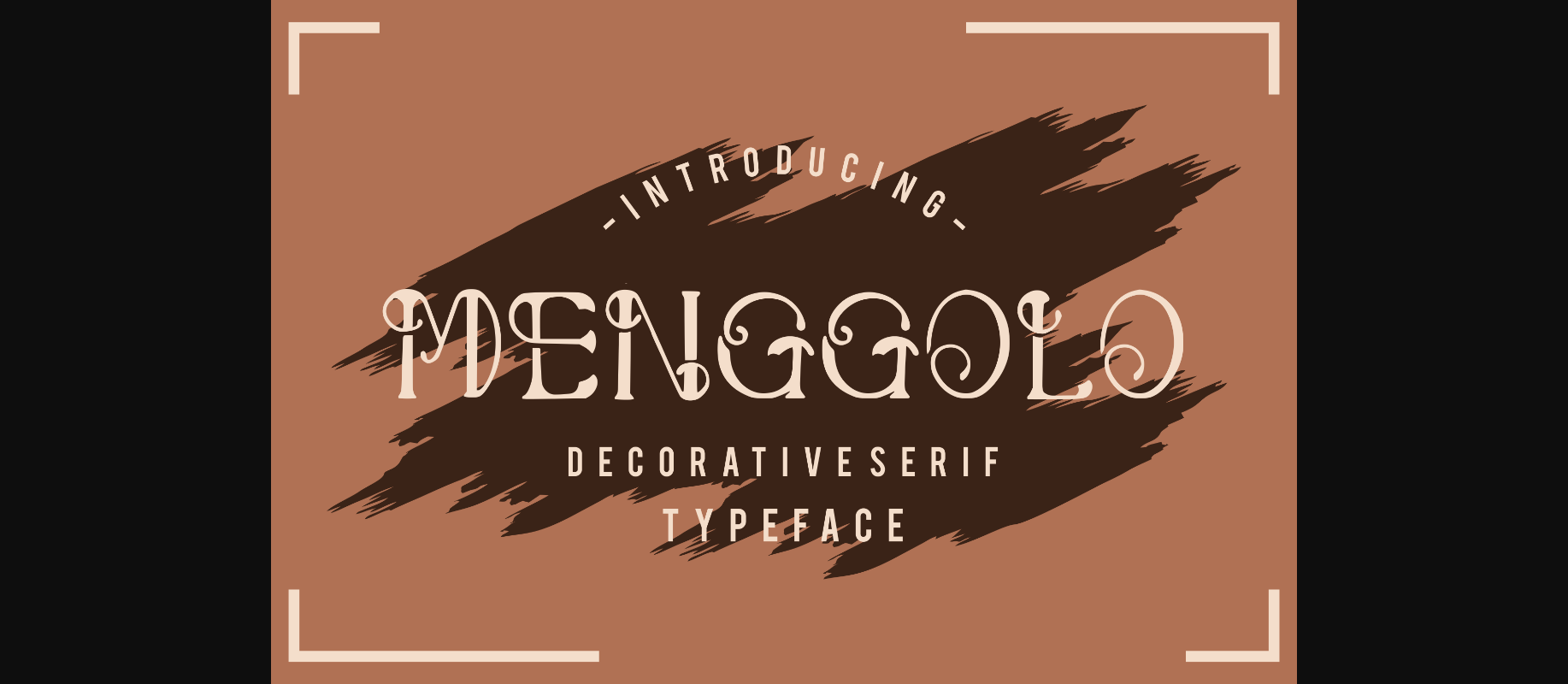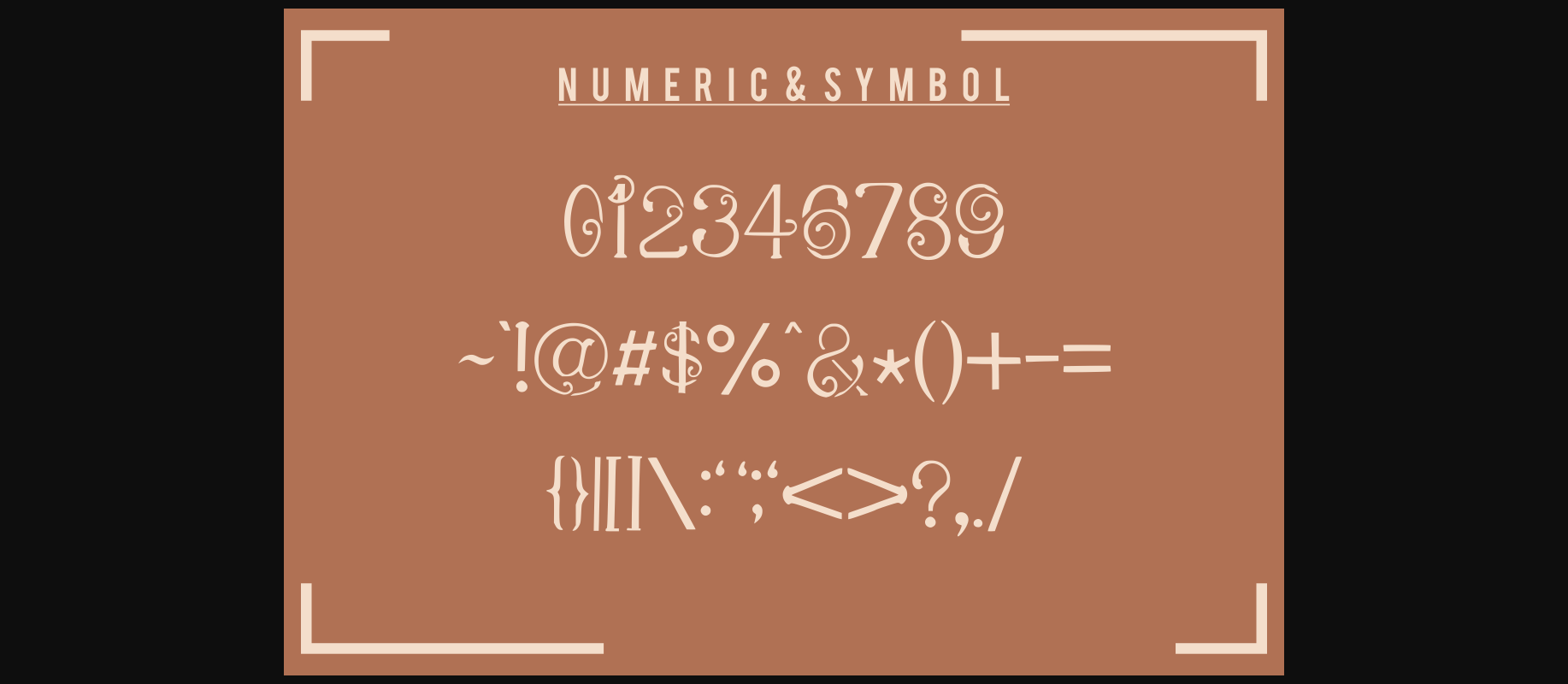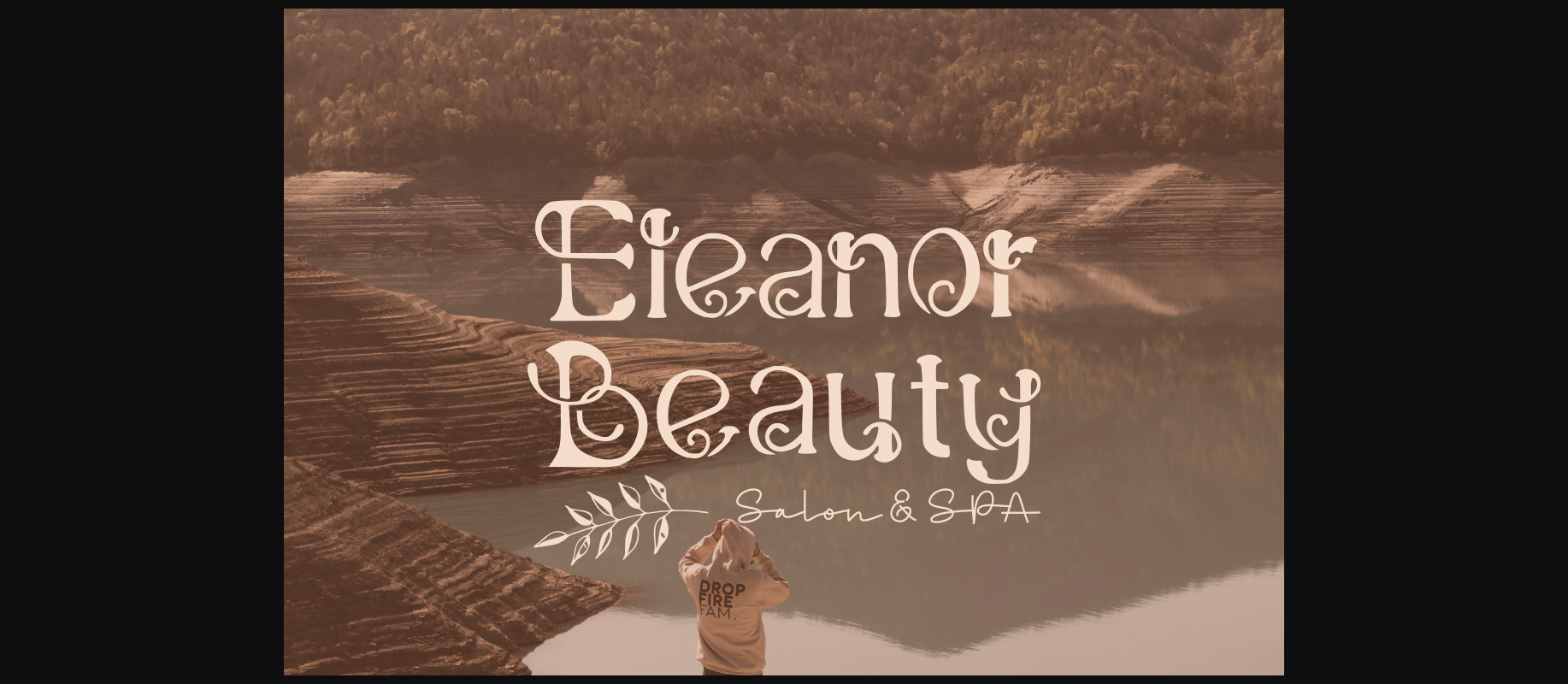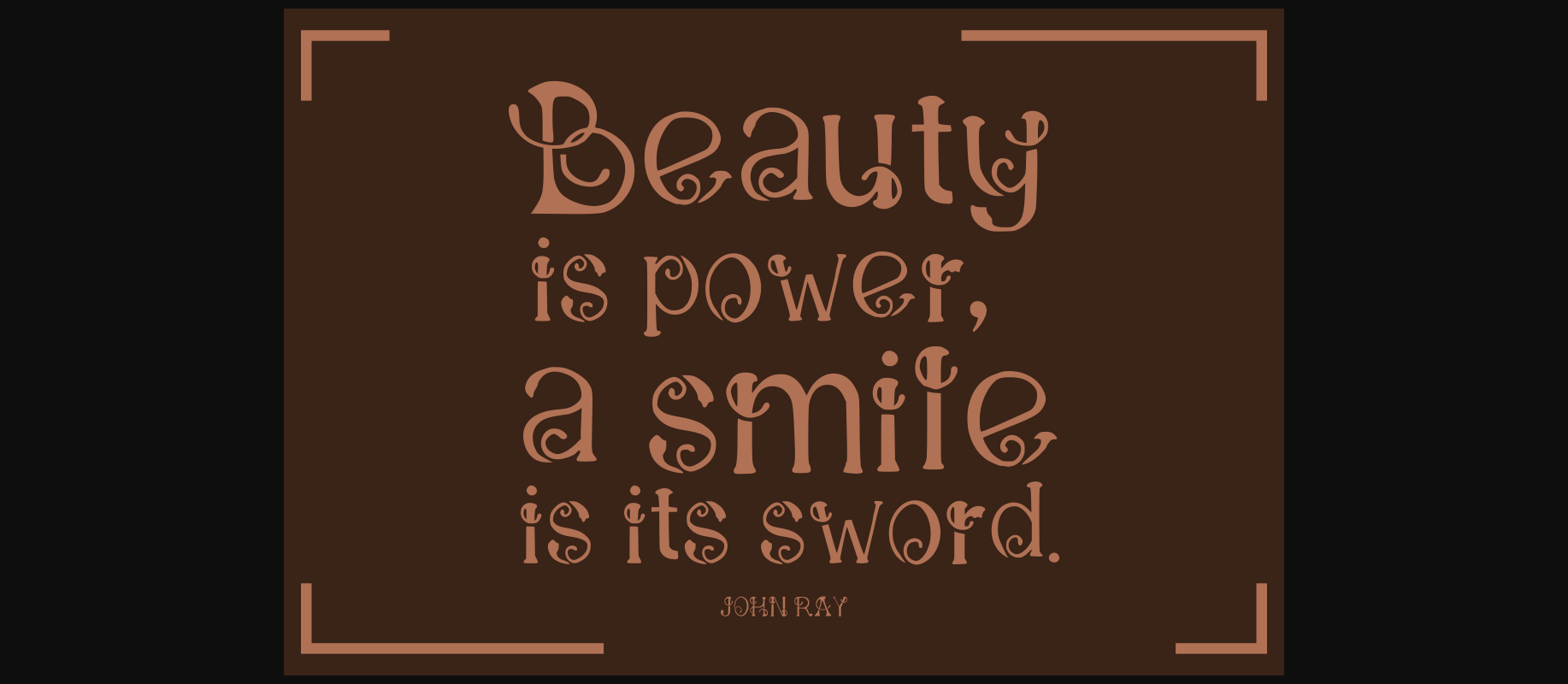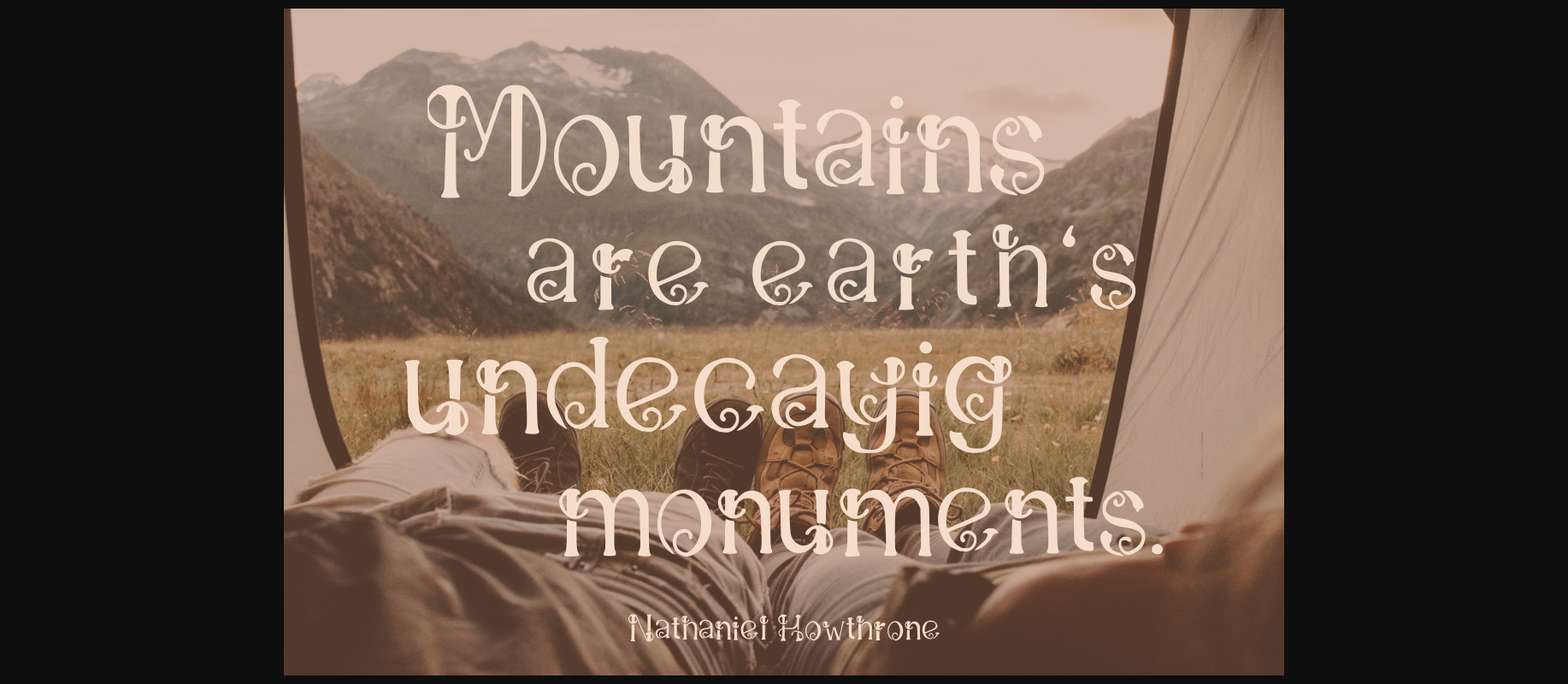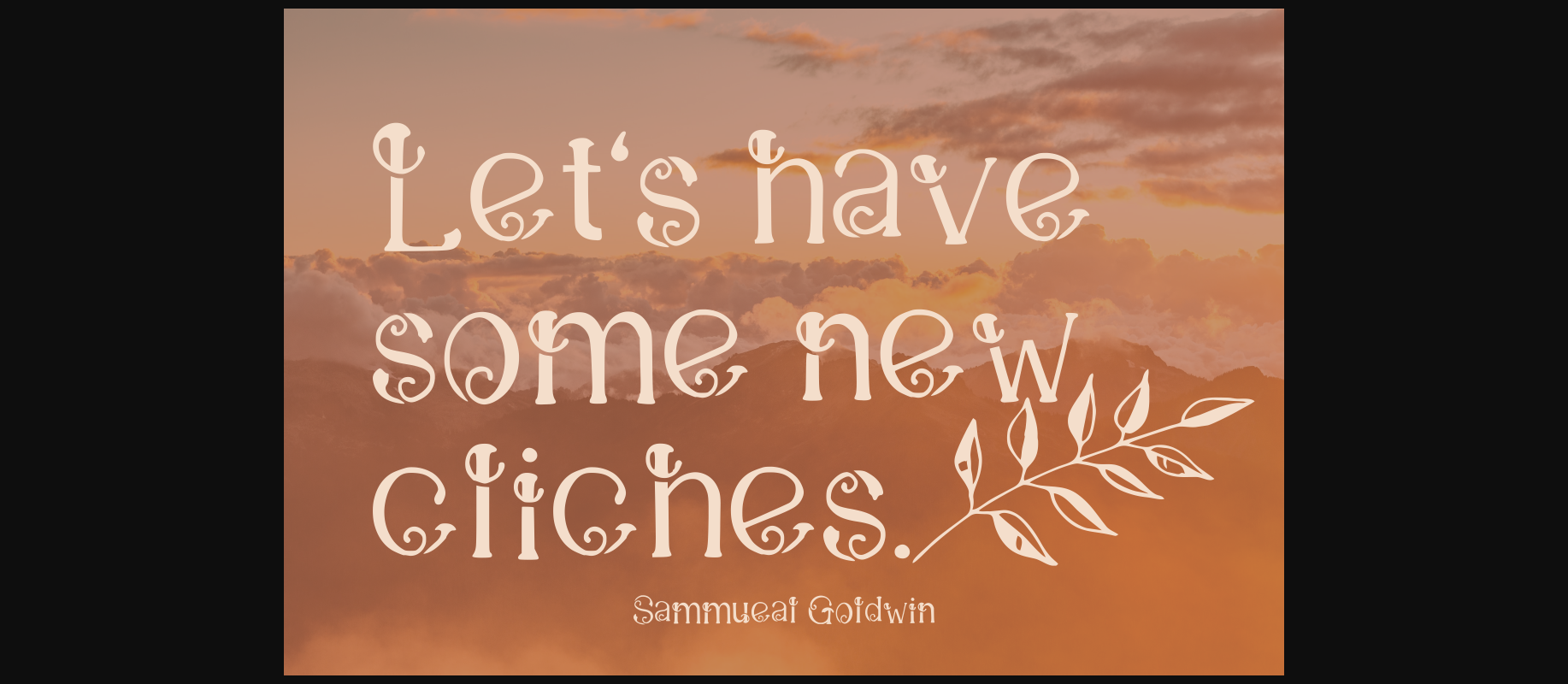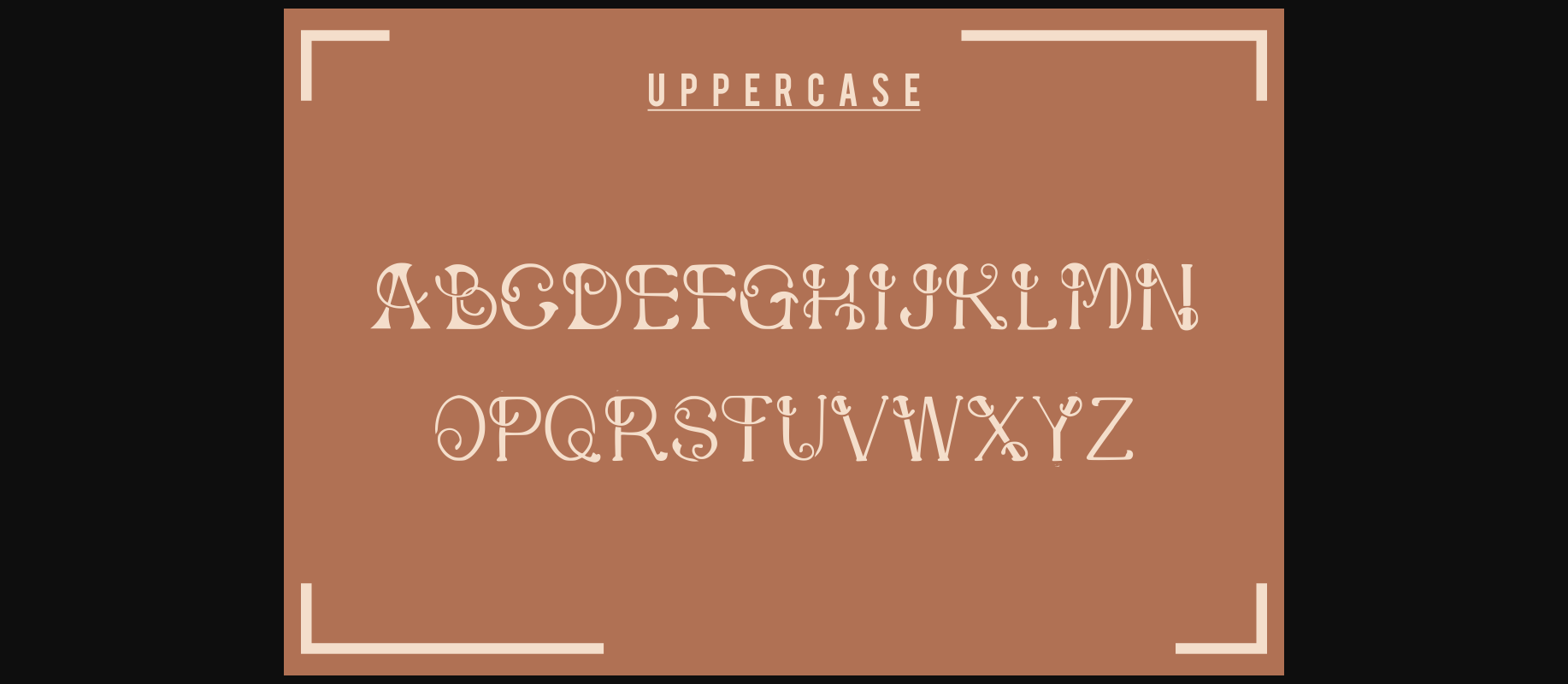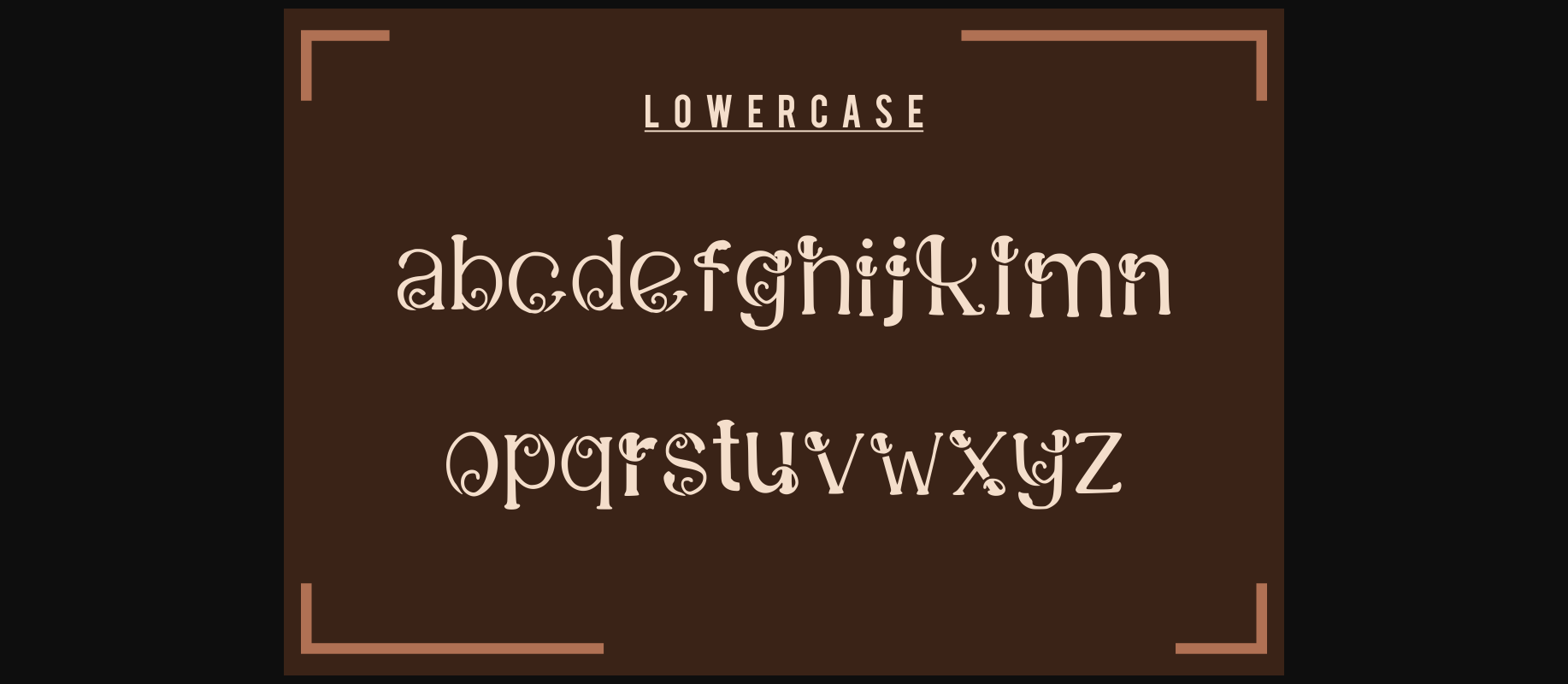
Menggolo Font
About Menggolo Font
Menggolo is a modern decorative serif font designed with an original touch
This cool font is 100% handmade with a strong and sharp effect. This font is perfect for titles, typography, posters, magazines, brochures, packaging, Websites, and much more.